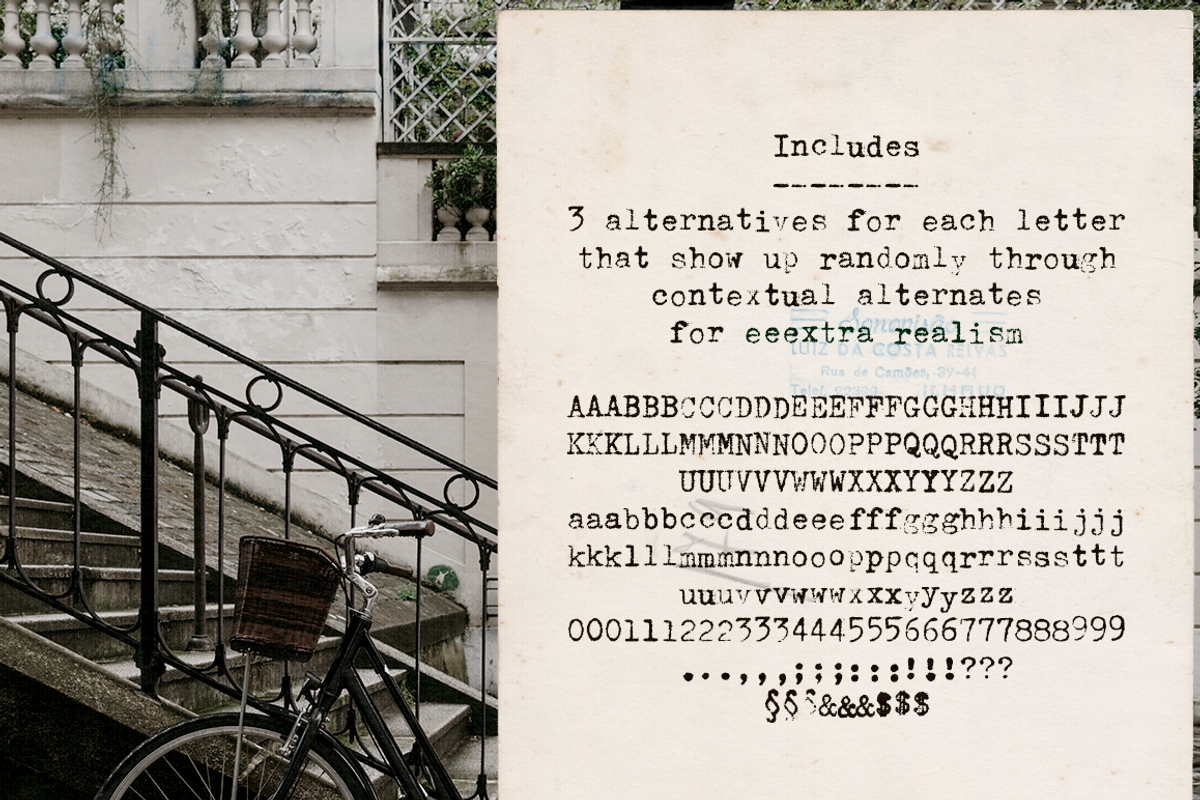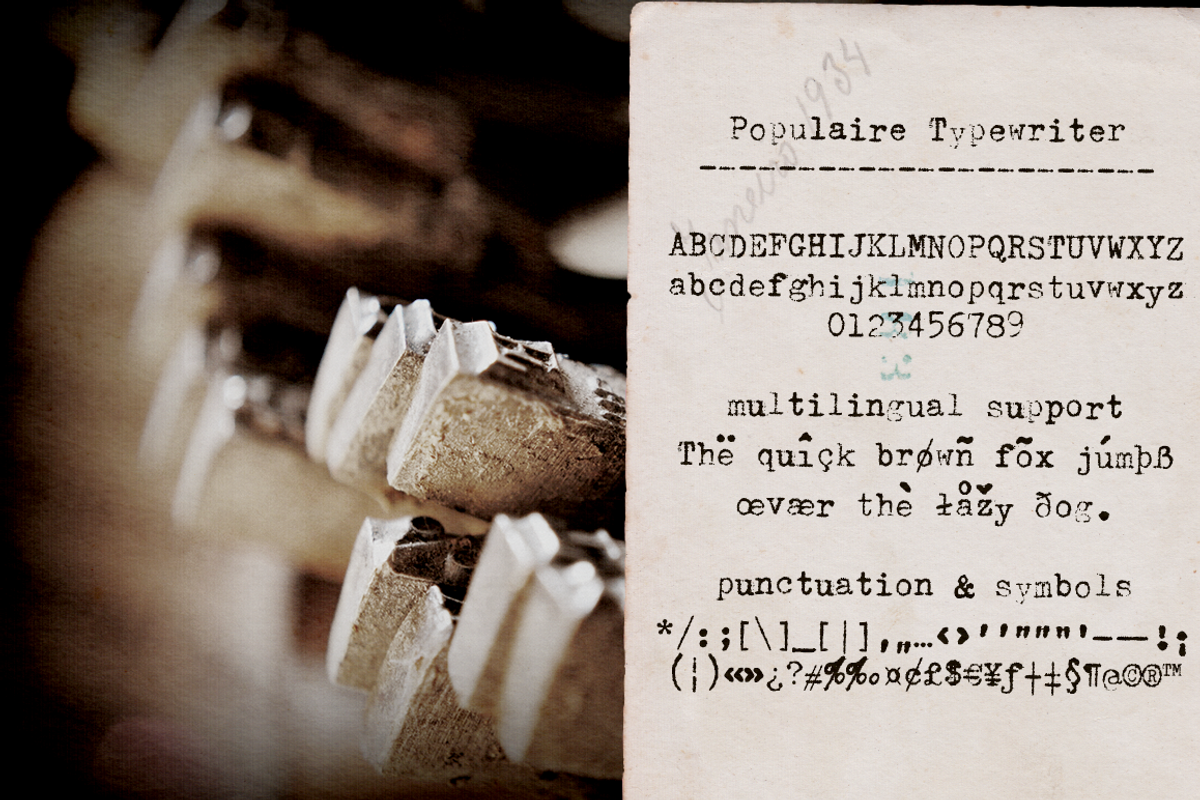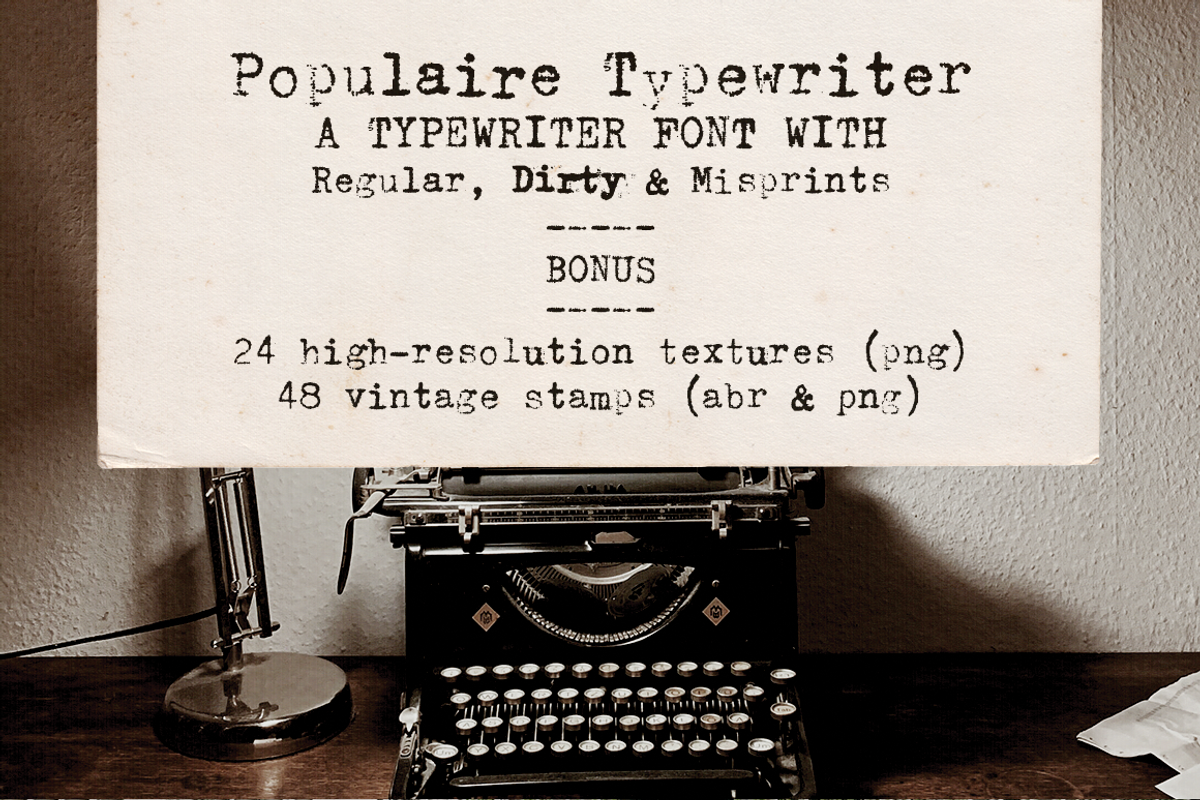
Populaire Typewriter Font & Extras
Populaire Typewriter font and extras is a retro design pack with typewriter fonts, paper textures and Photoshop stamp brushes, all sourced from real vintage materials. Use this set in any designs that needs a vintage touch. Use it in long or short texts, in digital collages, branding and packaging, social media posts, logotypes, etc.
- Populaire Typewriter typeface with Regular, Dirty and Misprints fonts. The Regular and Dirty versions of the font are monospaced fonts, with three alternatives for each character that show up randomly through contextual alternates. These features make these fonts extremely realistic and fun to use!